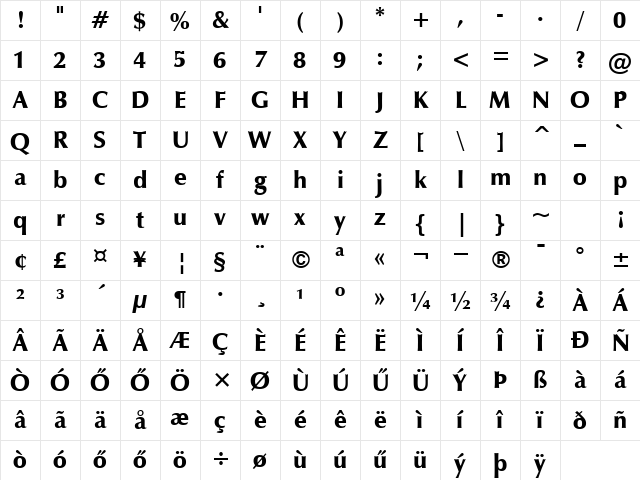
H_Zapf Humanist 601 Ultra BT Regular
Design Context for H_Zapf Humanist 601 Ultra BT
H_Zapf Humanist 601 Ultra BT is a composed and adaptable typeface that performs quietly and consistently across a wide range of design contexts.
Pro Tip: Use H_Zapf Humanist 601 Ultra BT in both headline and body roles to test its range before committing to a single application.